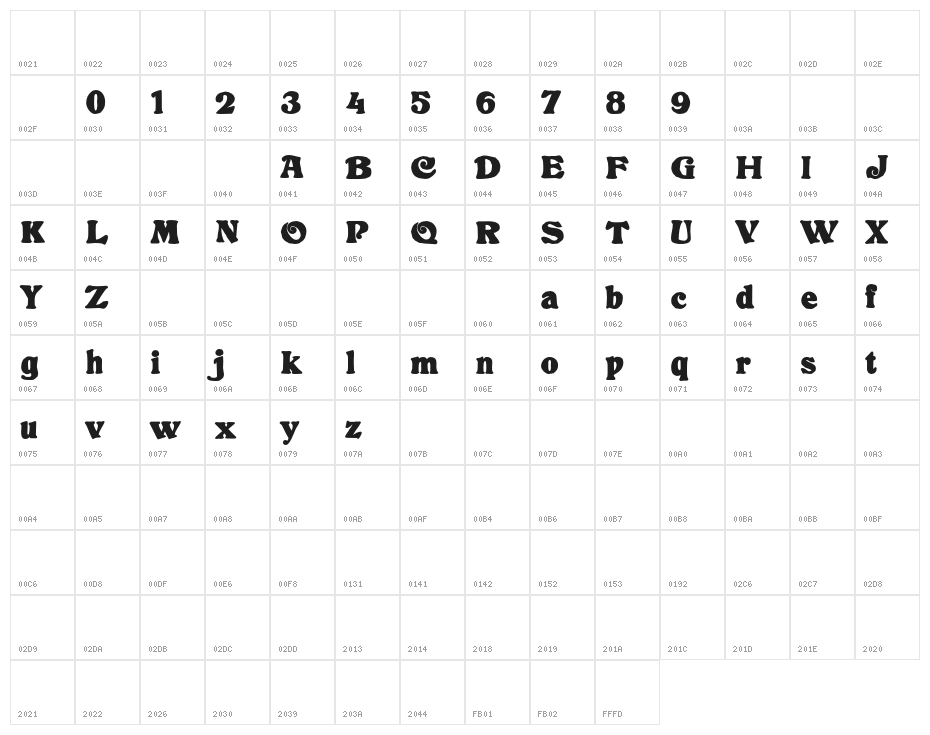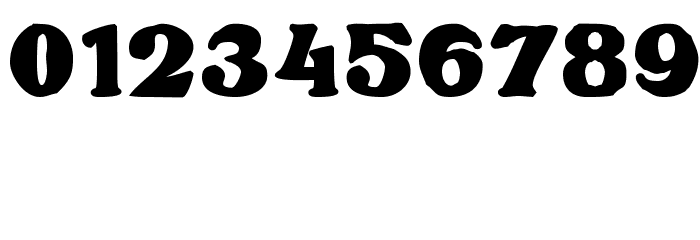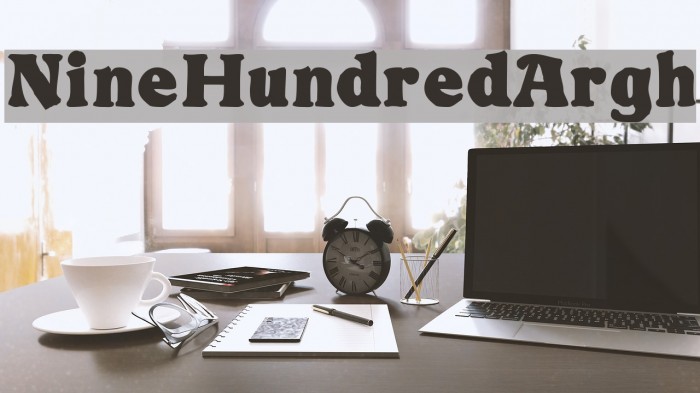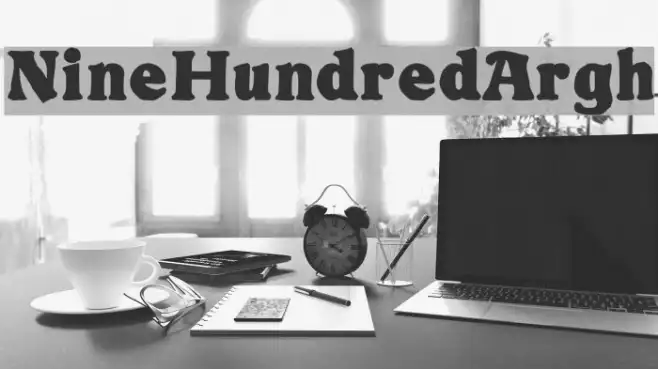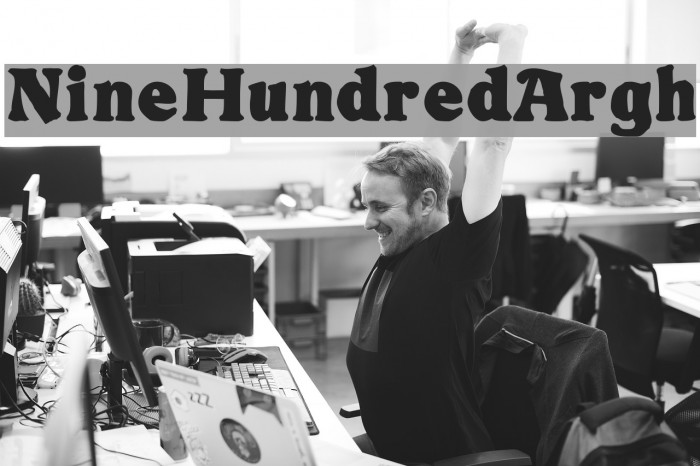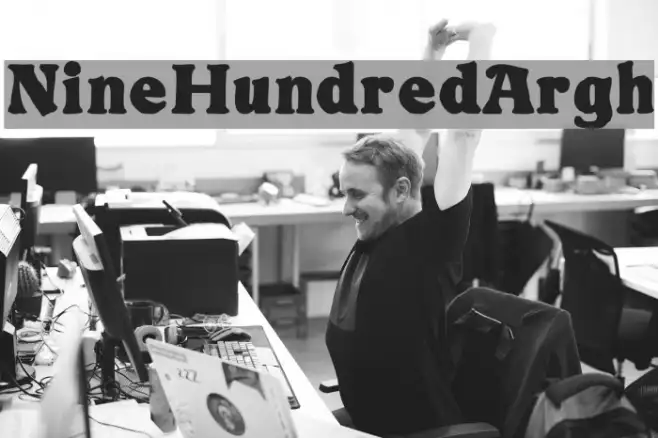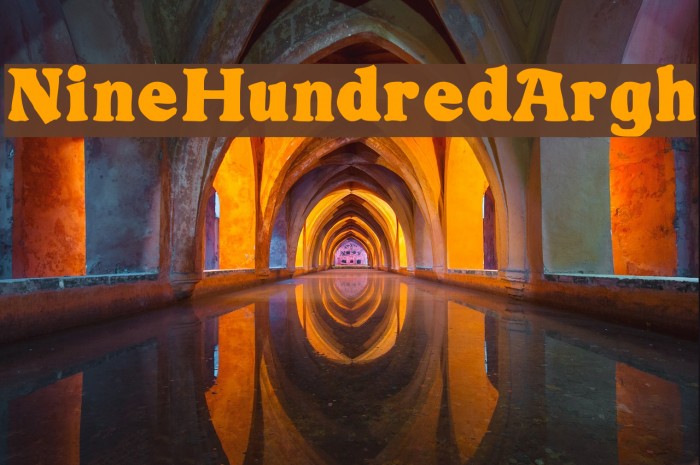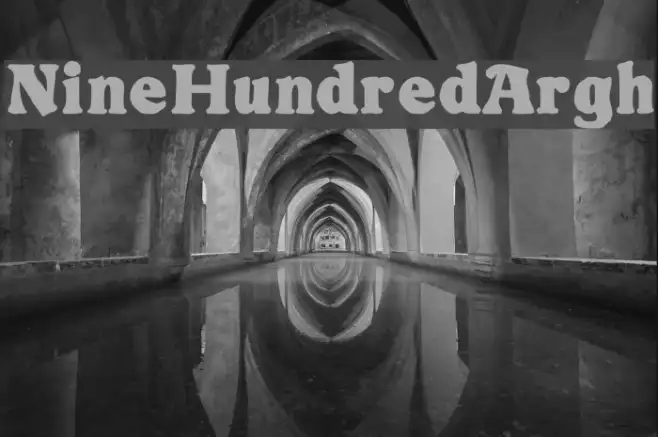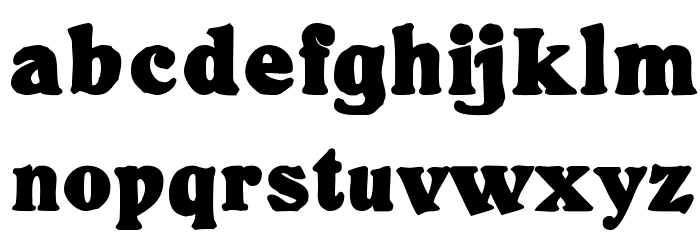
NineHundredArgh Font
NineHundredArgh Description
This font features a bold and playful design with a distinctively chunky and rounded appearance. The characters exhibit a whimsical style, with some letters incorporating unique swirls and curves, adding to its decorative nature. The uppercase letters are particularly robust, while the lowercase letters maintain a consistent thickness, contributing to a cohesive look. The numbers follow the same bold and rounded style, ensuring uniformity across all characters. This font's playful and eye-catching design makes it suitable for creative and informal applications.
| Proposed Projects | Ideal for children's books, playful branding, posters, and creative invitations. |